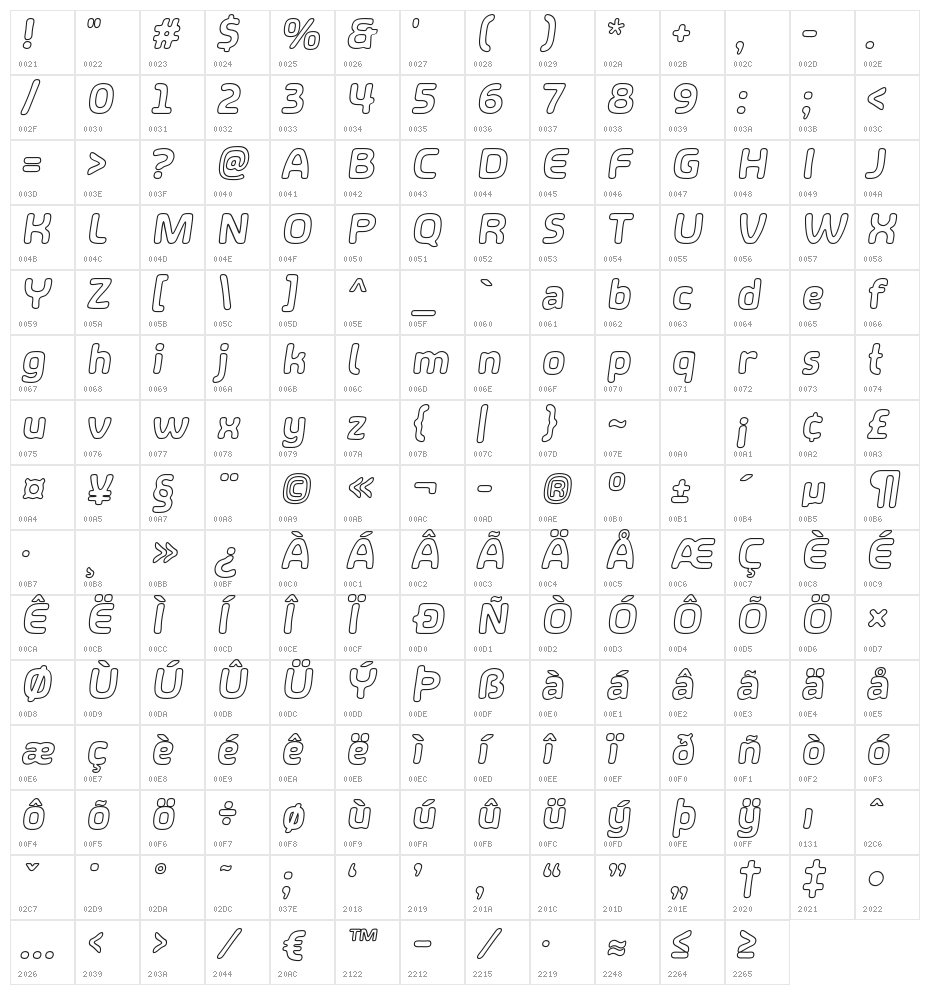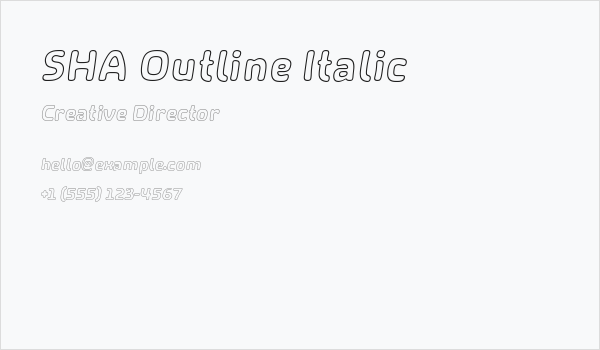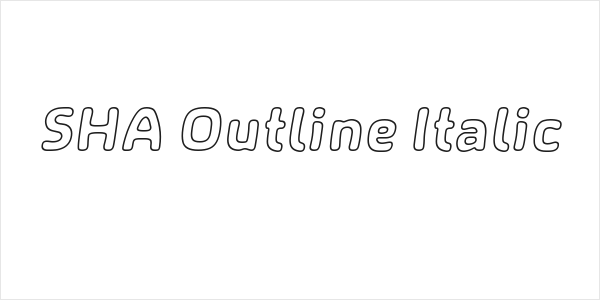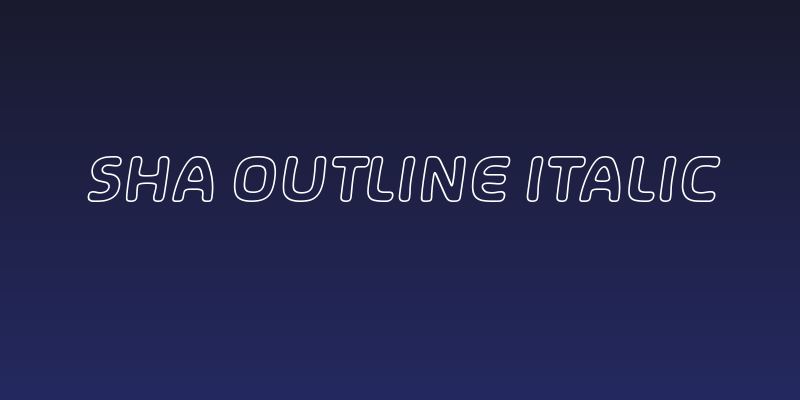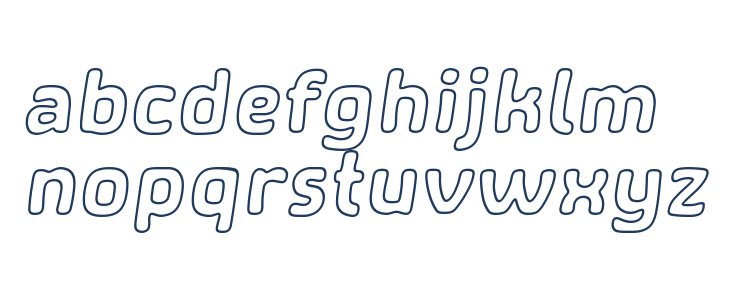
SHA Outline Italic Font
SHA Outline Italic Description
This font features a distinct outline style with a modern and playful appearance. Each character is defined by a consistent, smooth outline that gives it a hollow look, enhancing its visual impact. The italic slant adds a dynamic and forward-leaning energy, making it suitable for creative and informal designs. The uppercase and lowercase letters maintain a uniform width, contributing to a cohesive and balanced aesthetic. The numerals and special characters are crafted with the same attention to detail, ensuring versatility across various applications. This font's unique style makes it ideal for projects that require a bold yet approachable look.
Proposed ProjectsIdeal for posters, logos, headlines, and creative branding projects.